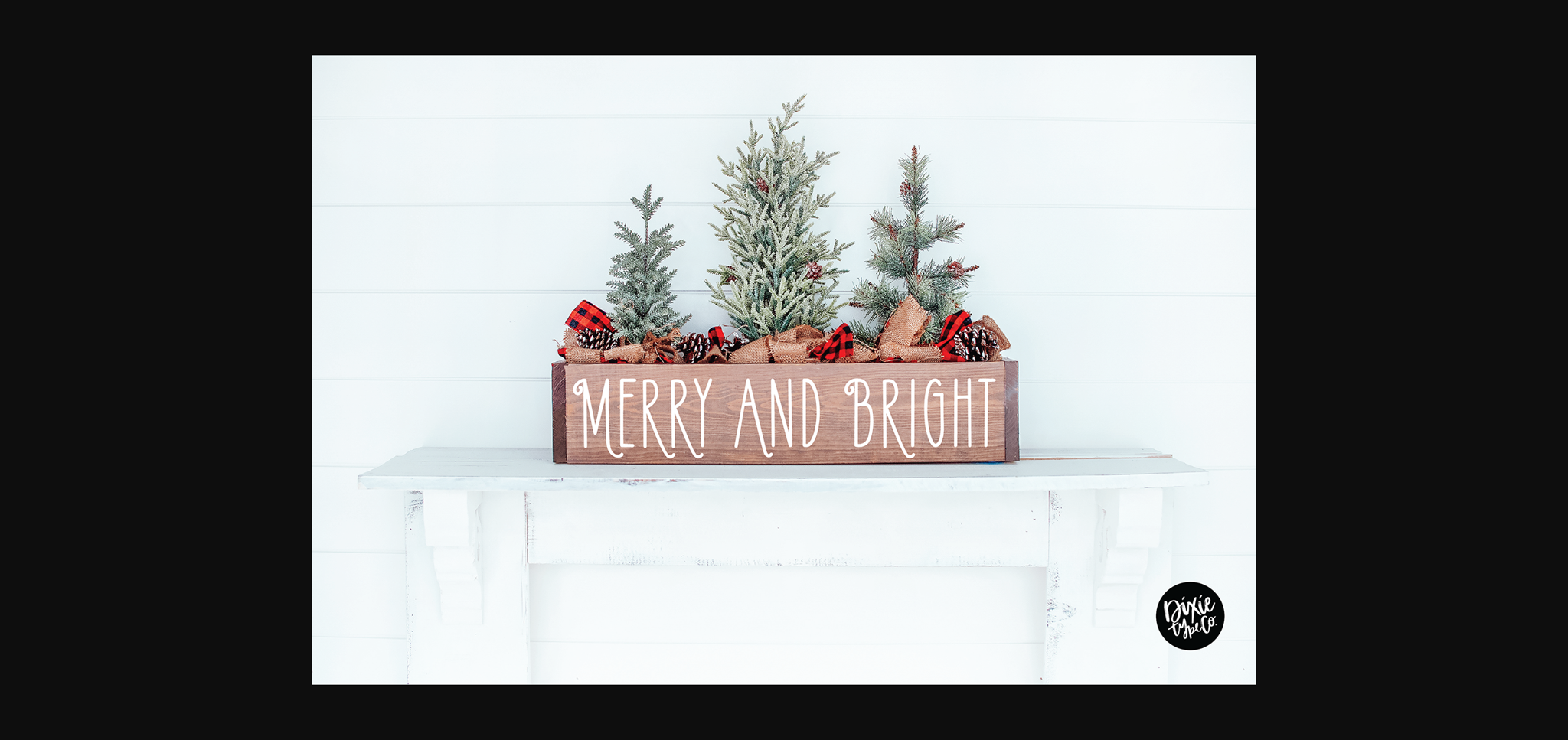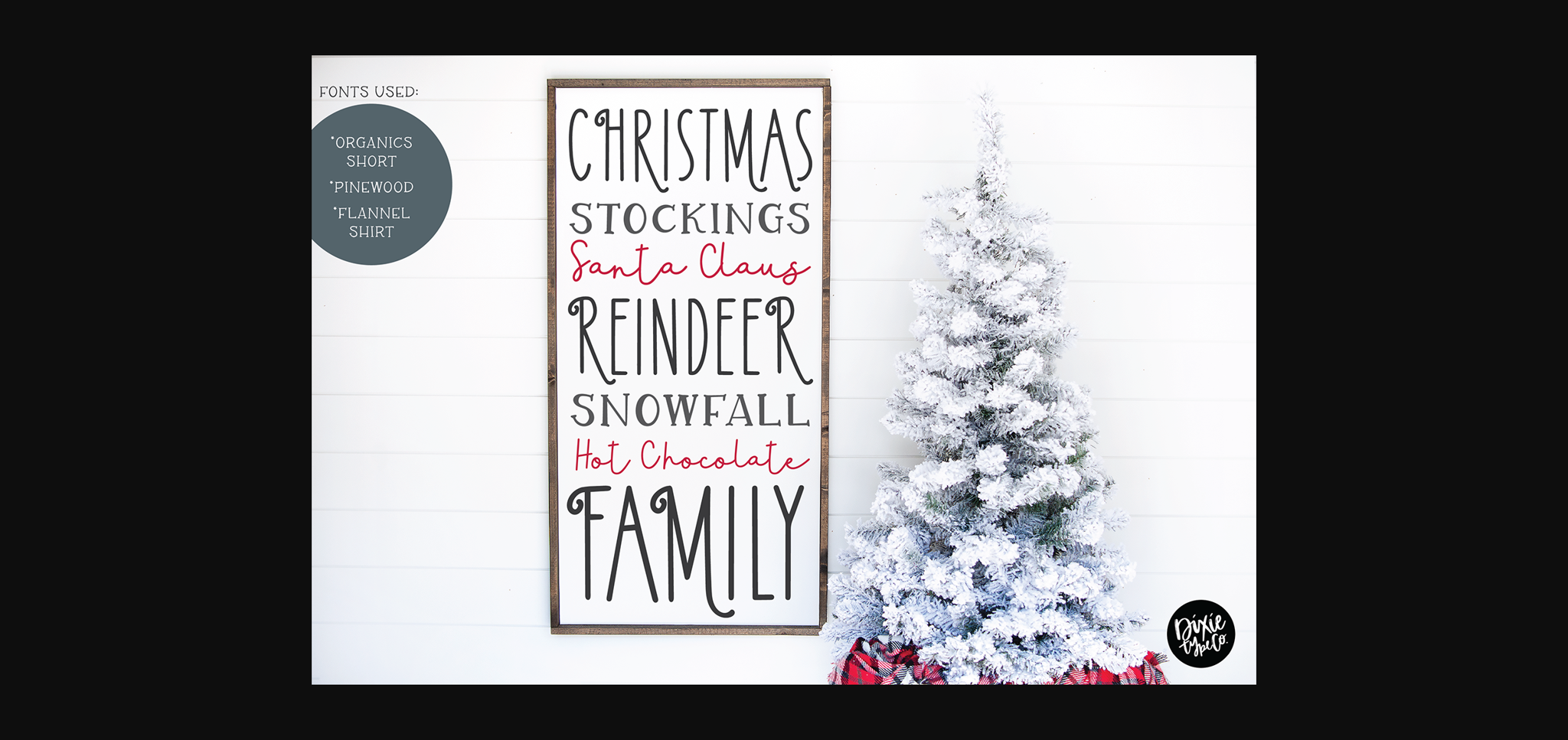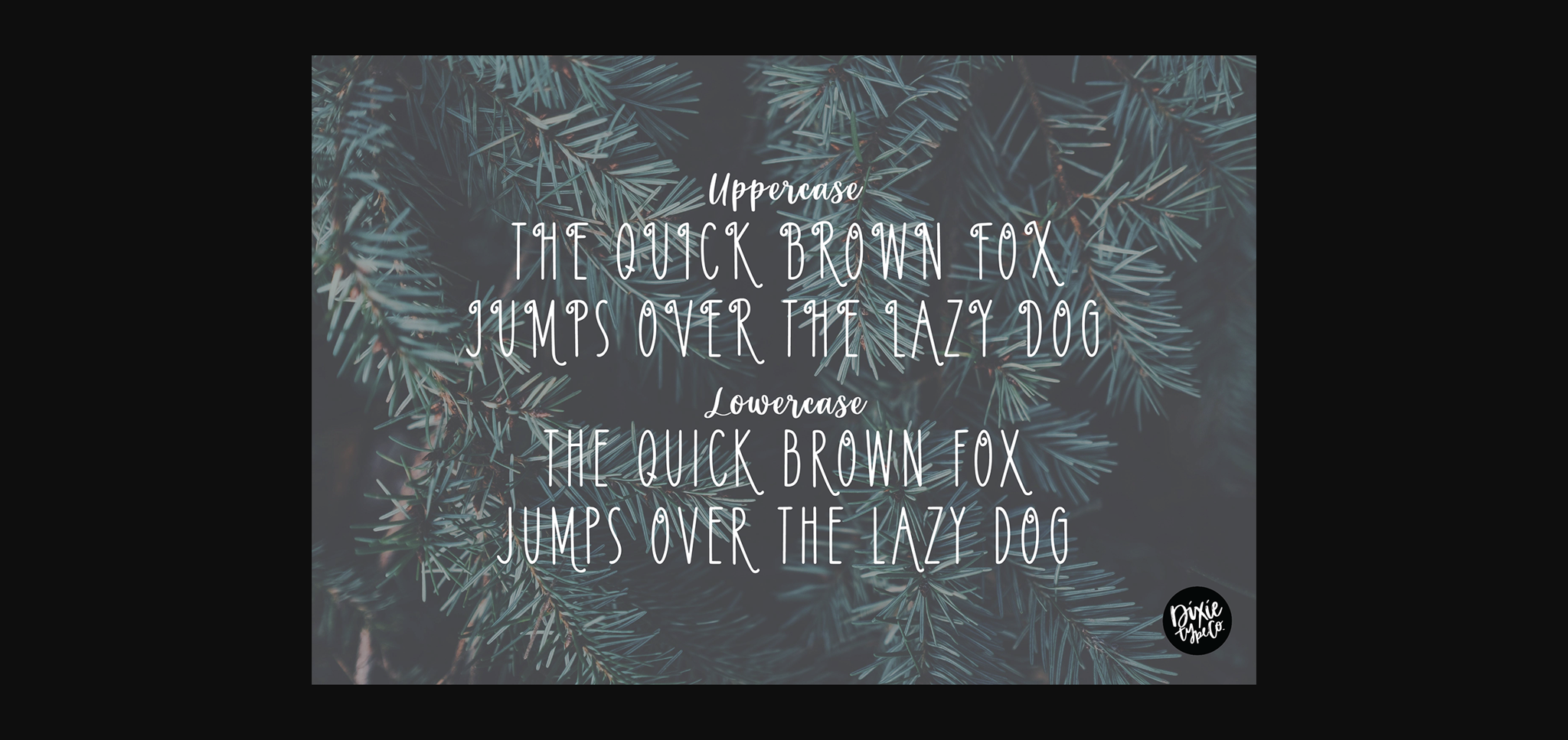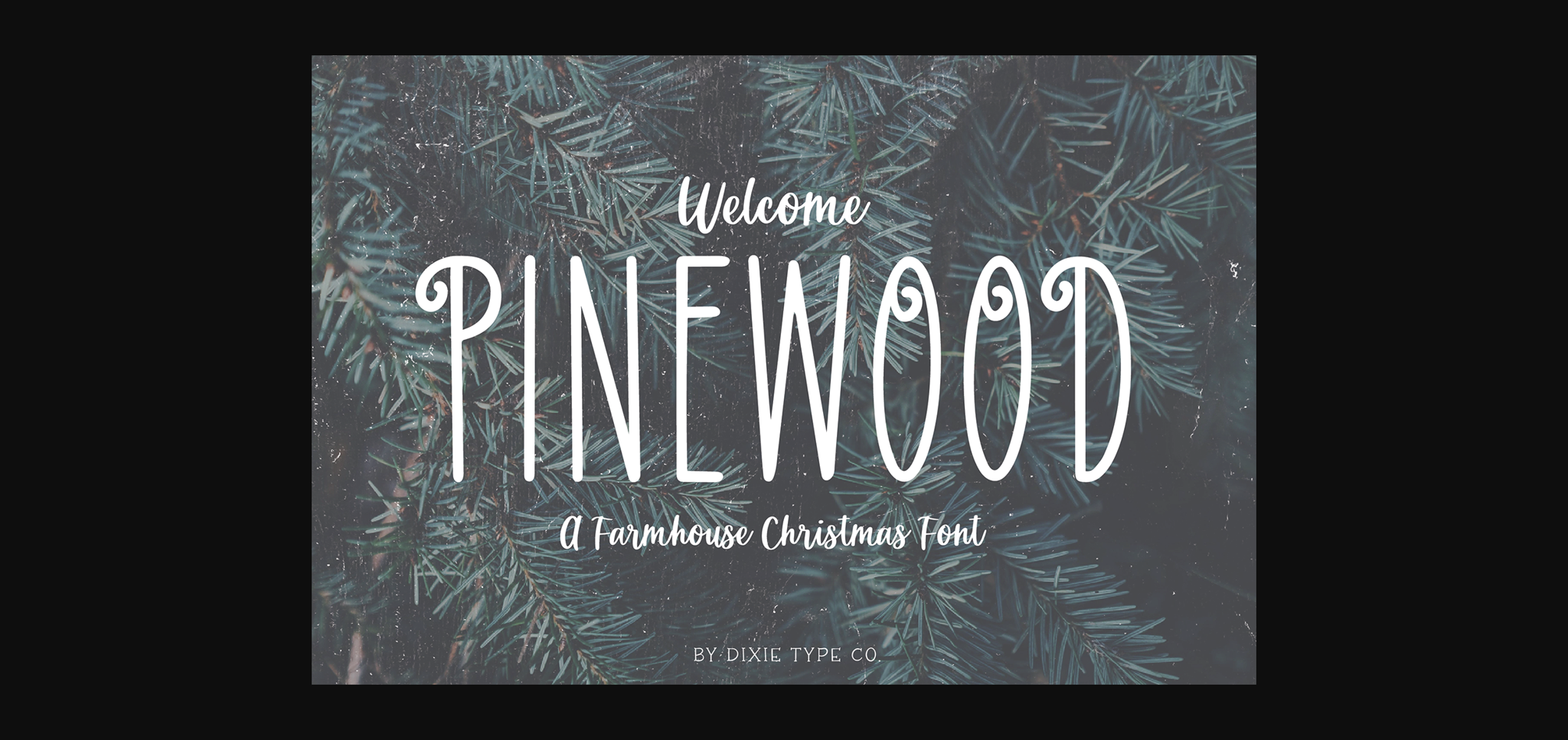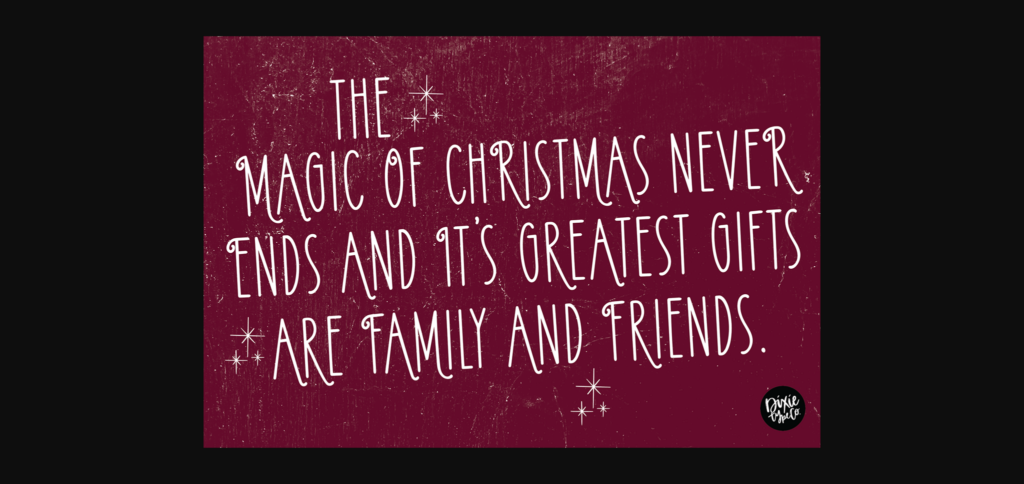
Pinewood Font
About Pinewood Font
“Pinewood” is a Farmhouse Christmas/Winter font.
Pinewood is great for your holiday projects. Use it for Christmas cards, winter crafts for decor, and more! This font includes numbers and basic punctuation.